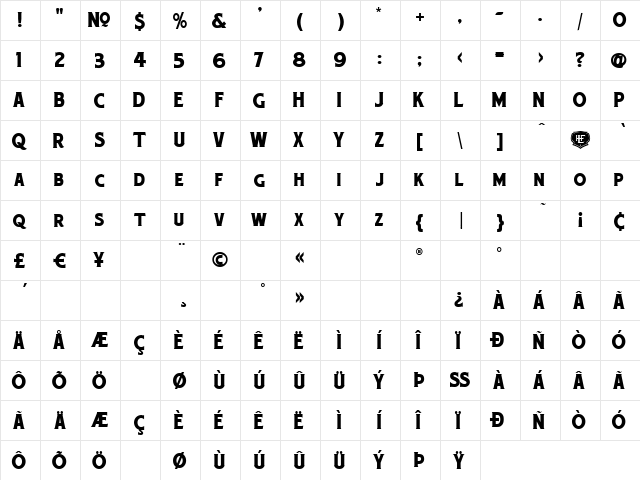
LHF Hensler Regular
Design Context for LHF Hensler Typeface
LHF Hensler is a composed and adaptable typeface that performs quietly and consistently across a wide range of design contexts.